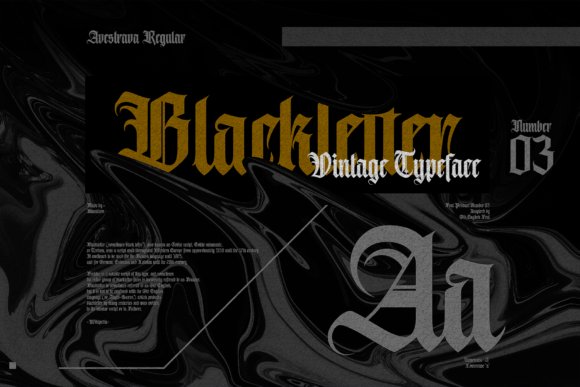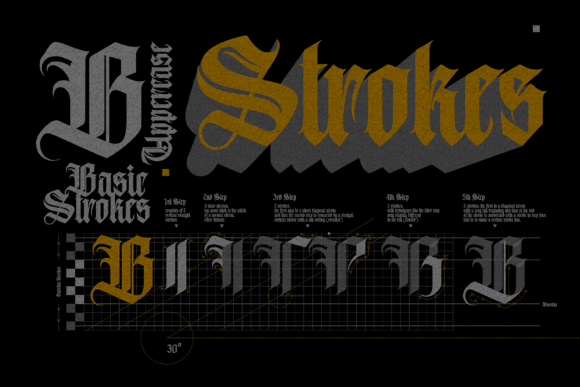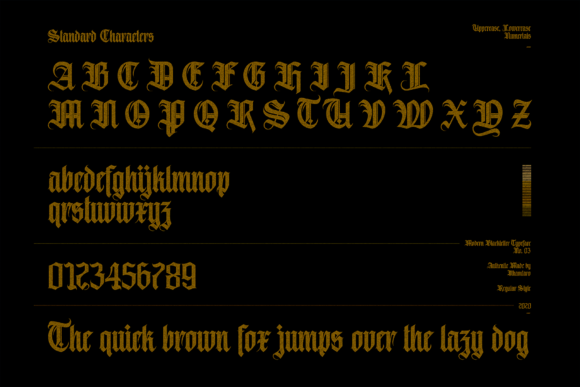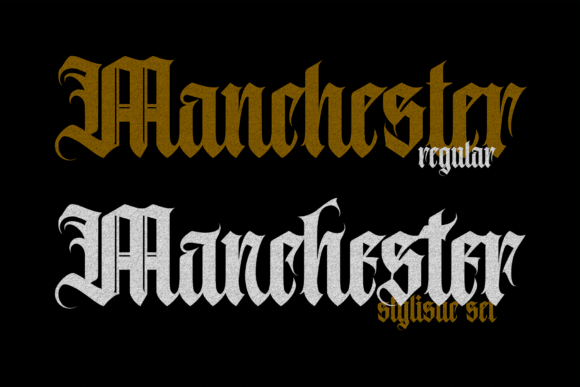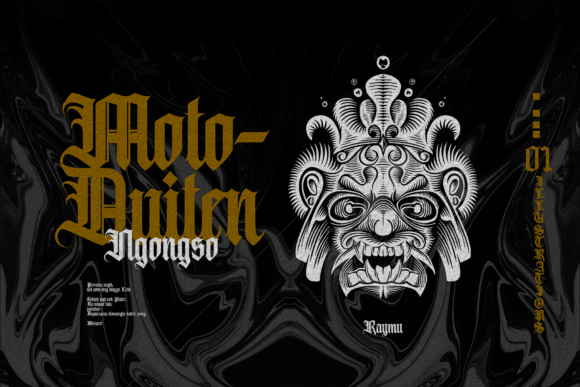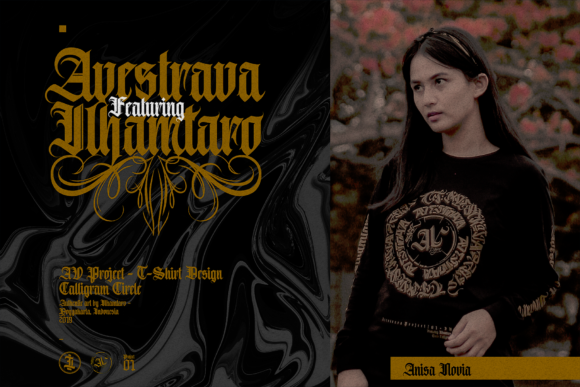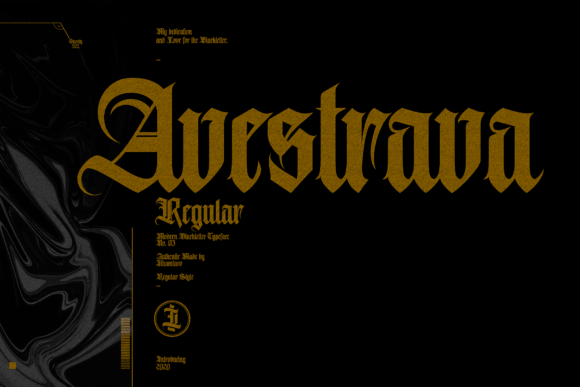
Avestrava Font: Elevate Your Design with a Stunning Blackletter Style
Avestrava is a gorgeous blackletter font with a bold feel. Use it to add a stunning twist to any design project in an instant! This magnificent font is perfect for designers and crafters looking to add a touch of elegance and sophistication to their work. In this article, we’ll dive into the world of Avestrava Font, exploring its features, benefits, and uses.
What is Avestrava Font?
Avestrava Font is a modern blackletter font designed to make a statement. Its bold, dramatic lines and intricate details make it perfect for creating eye-catching designs that demand attention. Whether you’re working on a logo, poster, or social media graphic, Avestrava Font is sure to elevate your design to the next level.
Key Features of Avestrava Font
- Bold and Dramatic: Avestrava Font features bold, dramatic lines that are sure to make a statement in any design.
- Intricate Details: The font’s intricate details add a level of sophistication and elegance to any design.
- Blackletter Style: Avestrava Font is a true blackletter font, perfect for creating designs that evoke a sense of luxury and refinement.
Benefits of Using Avestrava Font
So why choose Avestrava Font for your next design project? Here are just a few benefits of using this stunning font:
- Adds Visual Interest: Avestrava Font adds a level of visual interest to any design, making it perfect for creating eye-catching graphics and logos.
- Evokes Emotion: The font’s bold, dramatic lines and intricate details evoke a sense of luxury and refinement, making it perfect for creating designs that demand attention.
- Versatile: Avestrava Font is versatile and can be used in a variety of design projects, from logos and posters to social media graphics and more.
Uses for Avestrava Font
Avestrava Font is perfect for a variety of design projects, including:
- Logos: Use Avestrava Font to create a stunning logo that demands attention.
- Posters: Add a touch of elegance and sophistication to your posters with Avestrava Font.
- Social Media Graphics: Use Avestrava Font to create eye-catching social media graphics that stand out from the crowd.
- Packaging: Add a level of luxury and refinement to your packaging with Avestrava Font.
Tips for Using Avestrava Font
Here are a few tips for using Avestrava Font in your design projects:
- Use it Sparingly: Avestrava Font is bold and dramatic, so use it sparingly to avoid overwhelming your design.
- Pair it with Other Fonts: Pair Avestrava Font with other fonts to create a unique and visually interesting design.
Avestrava Font is a stunning blackletter font with a bold feel that’s perfect for adding a touch of elegance and sophistication to any design project. With its intricate details, bold lines, and versatility, Avestrava Font is sure to elevate your design to the next level. Whether you’re a designer or crafter, Avestrava Font is a must-have font for any design project.